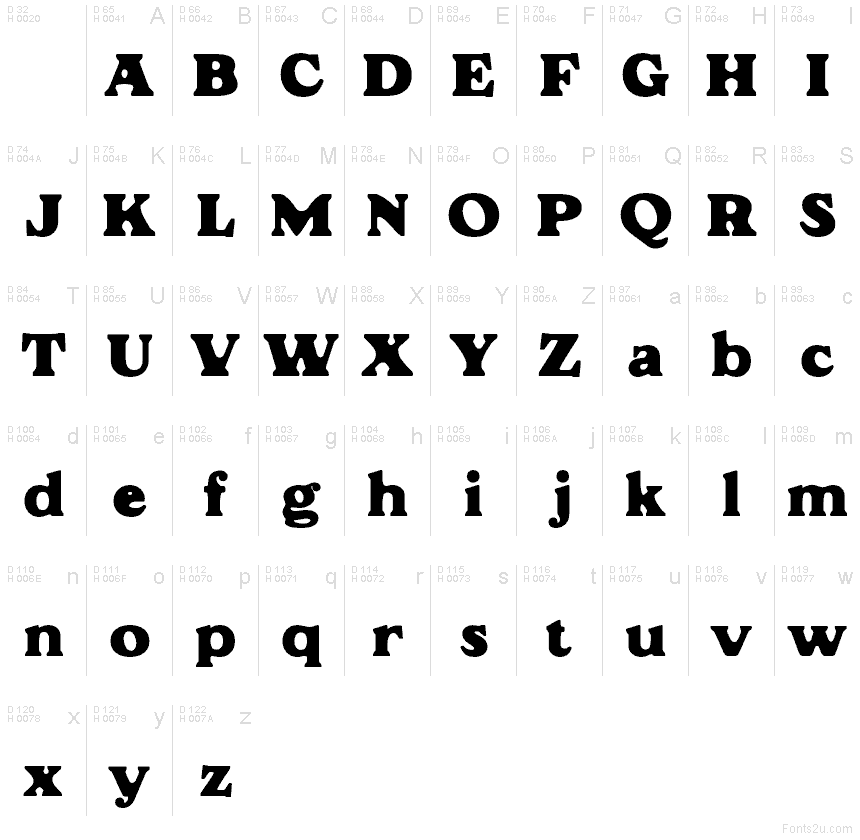
CSCalikaDrawn-Regular Demo
CS Calika Drawn font by Craft Supply Co. is a strong vintage-inspired and expanded serif font with a bold weight. A distinctive presence with authoritative and traditional expressions are what set this typeface apart from the rest making it an ideal inclusion in projects for individuals after something different.